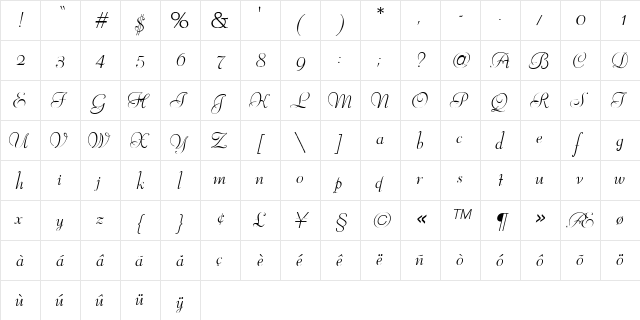
Moskovia Script Regular
Design Context for Moskovia Script Typeface
Moskovia Script flows with the natural rhythm of handwritten lettering, making it ideal for designs that call for warmth and personal expression.
Font Pairing: Combine Moskovia Script with a simple geometric sans for maximum contrast — the tension between flowing curves and clean structure is a classic typographic pairing.
Pro Tip: Use Moskovia Script for short runs of text — names, titles, or taglines. Extended body copy in script faces tires the eye quickly.